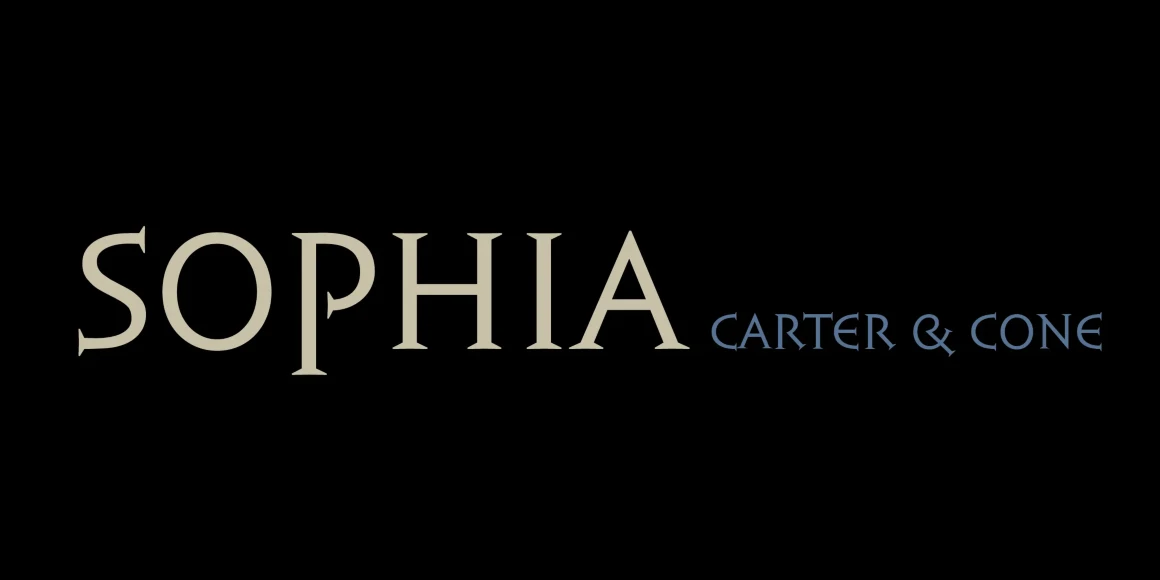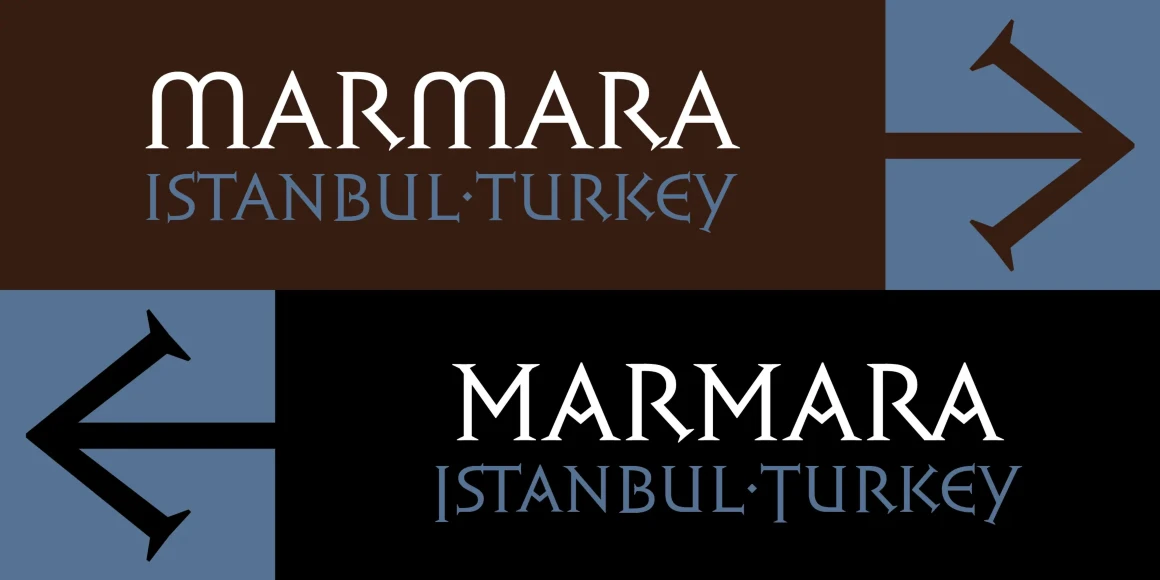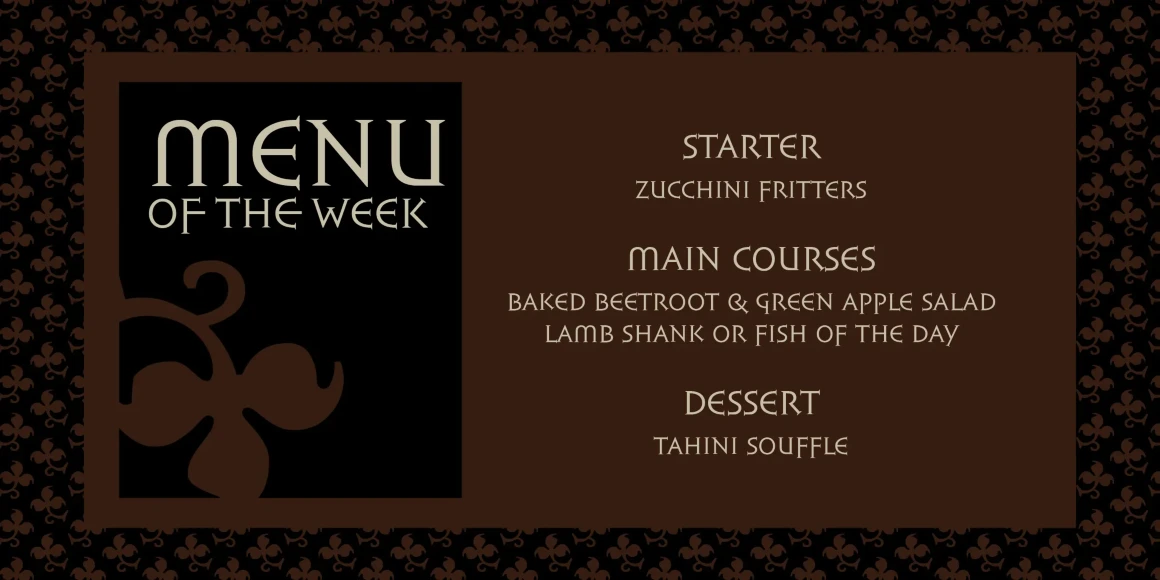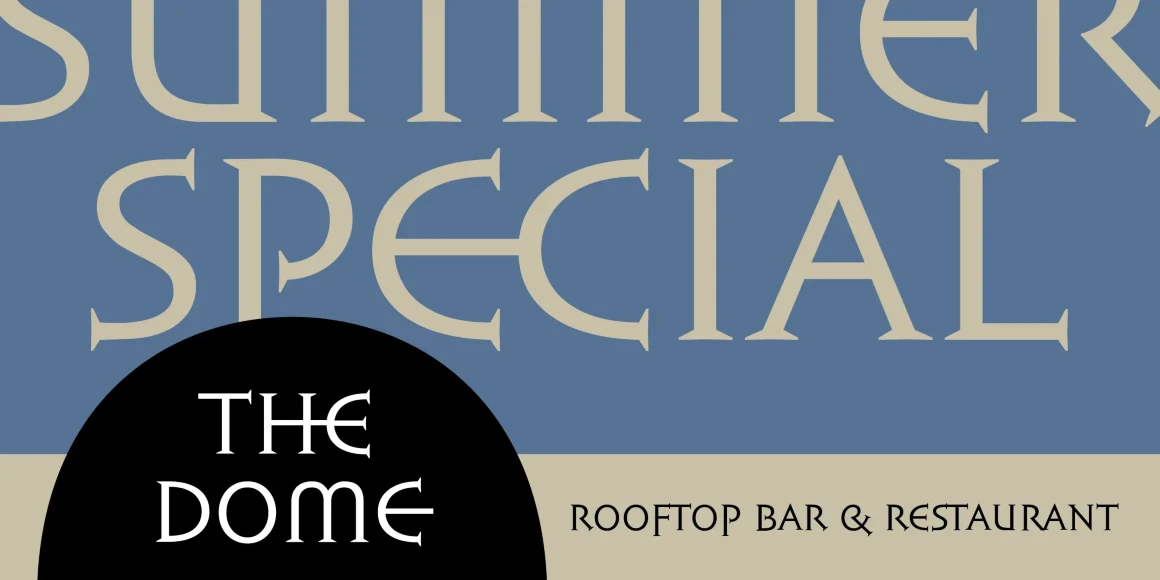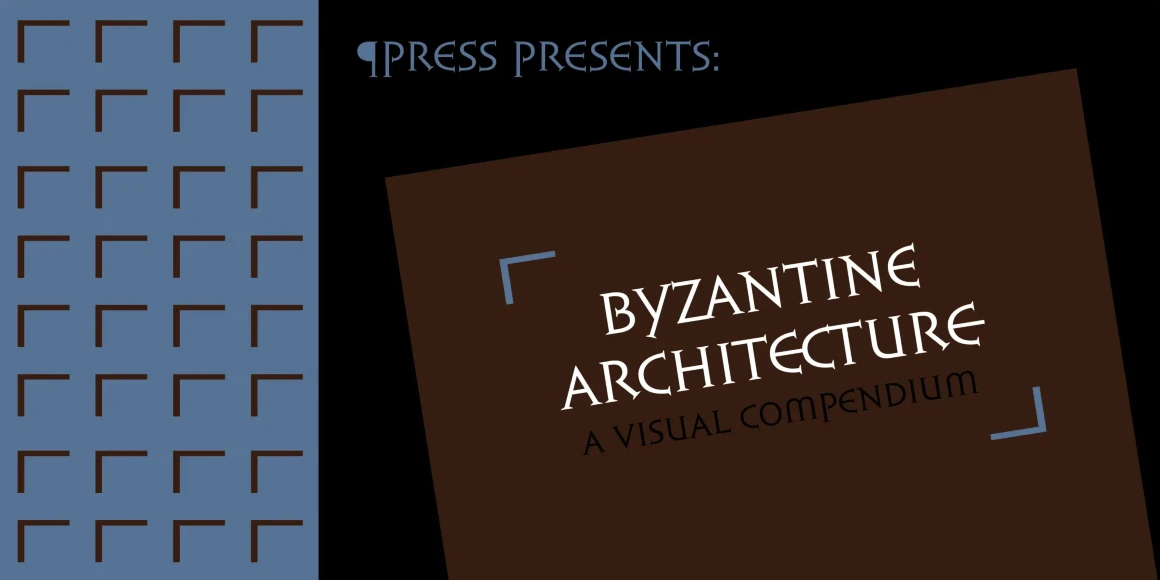
Sophia CC
From Carter & Cone
Matthew Carter’s design of Sophia CC, a titling face, was suggested by hybrid alphabets from sixth-century Constantinople — a Byzantine blend of cosmopolitan influences: classical Roman capitals, early uncials, and Greek letterforms. Carter & Cone’s Sophia CC contains several alternate character shapes. Some of these include extended strokes designed to create visual rhythm and fuse together with neighboring letters to compose on-the-fly ligatures.
Designed by Matthew Carter